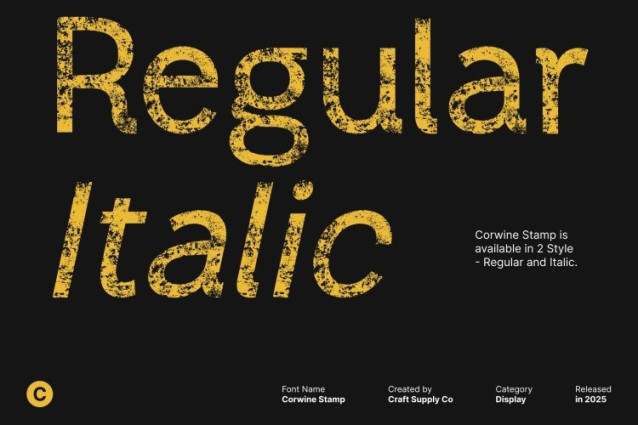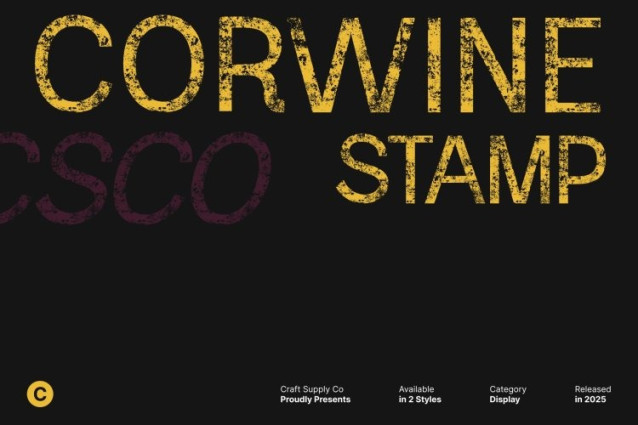
Corwine Stamp Font
Corwine Stamp Font This is a modern sans serif font designed to convey strength, clarity, and professionalism. Its clean, structured letterforms create a confident appearance, making it an ideal choice for projects that demand a contemporary and authoritative typographic presence.
Structured Design for Readability and Impact
The font’s geometric precision and balanced proportions ensure excellent readability while maintaining a bold visual impact. This font perfect for headlines, branding, and editorial layouts, where clarity and strong design communication are essential.
Stamped Texture for Vintage Personality
Enhanced with a stamp effect, gains a tactile, handcrafted quality that introduces subtle imperfections and vintage character. This textured finish adds depth and uniqueness to the modern typeface, combining contemporary strength with nostalgic charm for a versatile and visually engaging look.
Ideal for Headlines, Branding, and Editorial Projects
This font excels across branding, editorial titles, posters, packaging, and display designs. Its confident modern sans serif structure, combined with the stamped texture, provides a perfect balance of clarity, authority, and vintage-inspired character, making every project feel professional, expressive, and timeless.